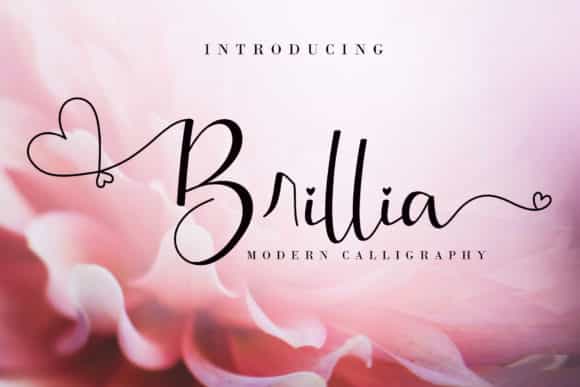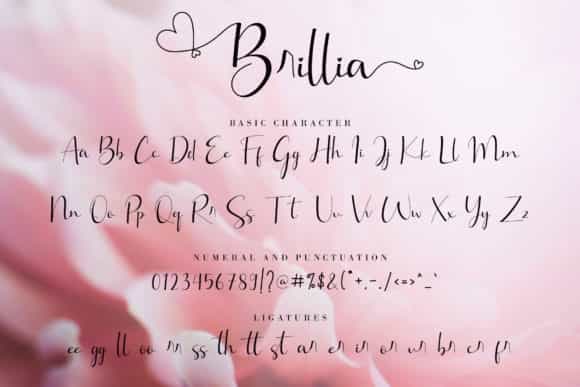
Brillia Font is a lovely modern calligraphy font that is handwritten with a soft touch. Get enthralled by its natural feel and use it to design gorgeous wedding invitations, stunning stationary art, stunning social media posts and adorable greeting cards.